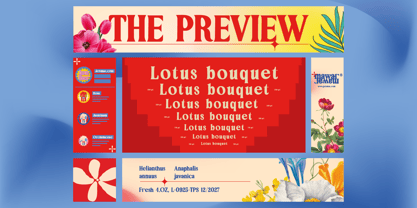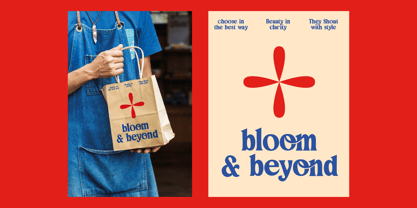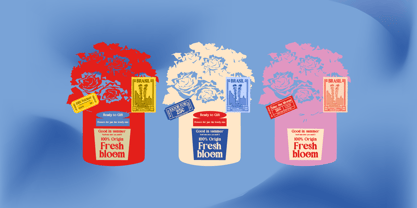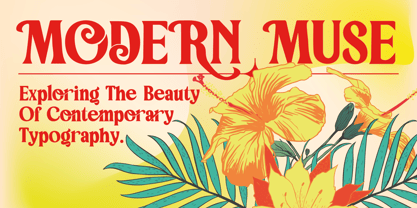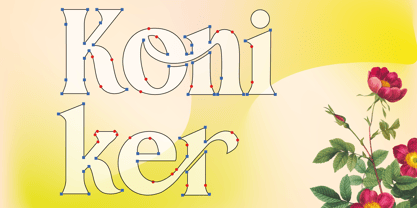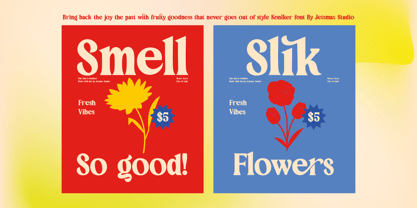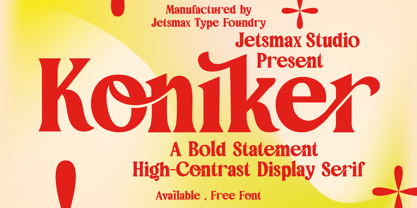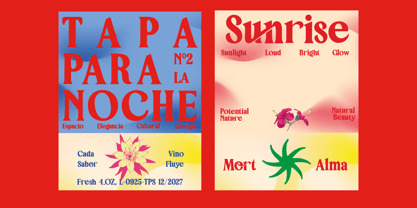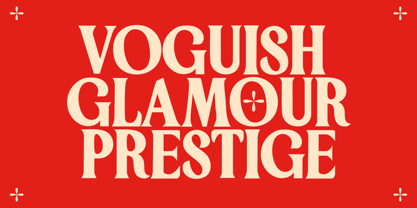
Koniker
The Koniker Font Family was designed by Khairil Anwar and published by Jetsmax Studio. Koniker contains 1 styles. More about this family
Koniker is a striking display typeface crafted to command attention. It combines a bold, authoritative structure with fluid, organic curves, achieving a perfect harmony between modern elegance and chic retro revival. The essence of Koniker is defined by its extreme contrast, showcasing a dramatic interplay between thick stems and razor-thin hairlines. Unique swashes and flowing terminals, particularly in characters like ‘n’, ‘k’, and ‘r’, establish a captivating visual rhythm. This makes Koniker an excellent choice for design projects that require a strong personality and high-end aesthetics, suitable for branding, editorial design, and web applications.